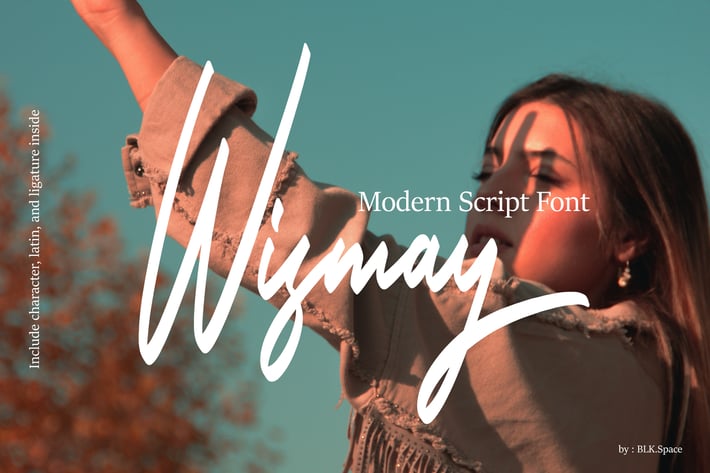
Wismay - Modern Script Font
Wismay is here with other characters. Wismay can be used for all your visual needs. Starting from social media campaigns, invitations, magazine covers, posters and more.
Wismay has standard characters and several features in it, including standard ligatures and substitute characters from existing ones. You can use and play as many times as you want with the Wismay characters. Wismay has web fonts built in too, don't forget that.
Wismay is here with other characters. Wismay can be used for all your visual needs. Starting from social media campaigns, invitations, magazine covers, posters and more.
Wismay has standard characters and several features in it, including standard ligatures and substitute characters from existing ones. You can use and play as many times as you want with the Wismay characters. Wismay has web fonts built in too, don't forget that.